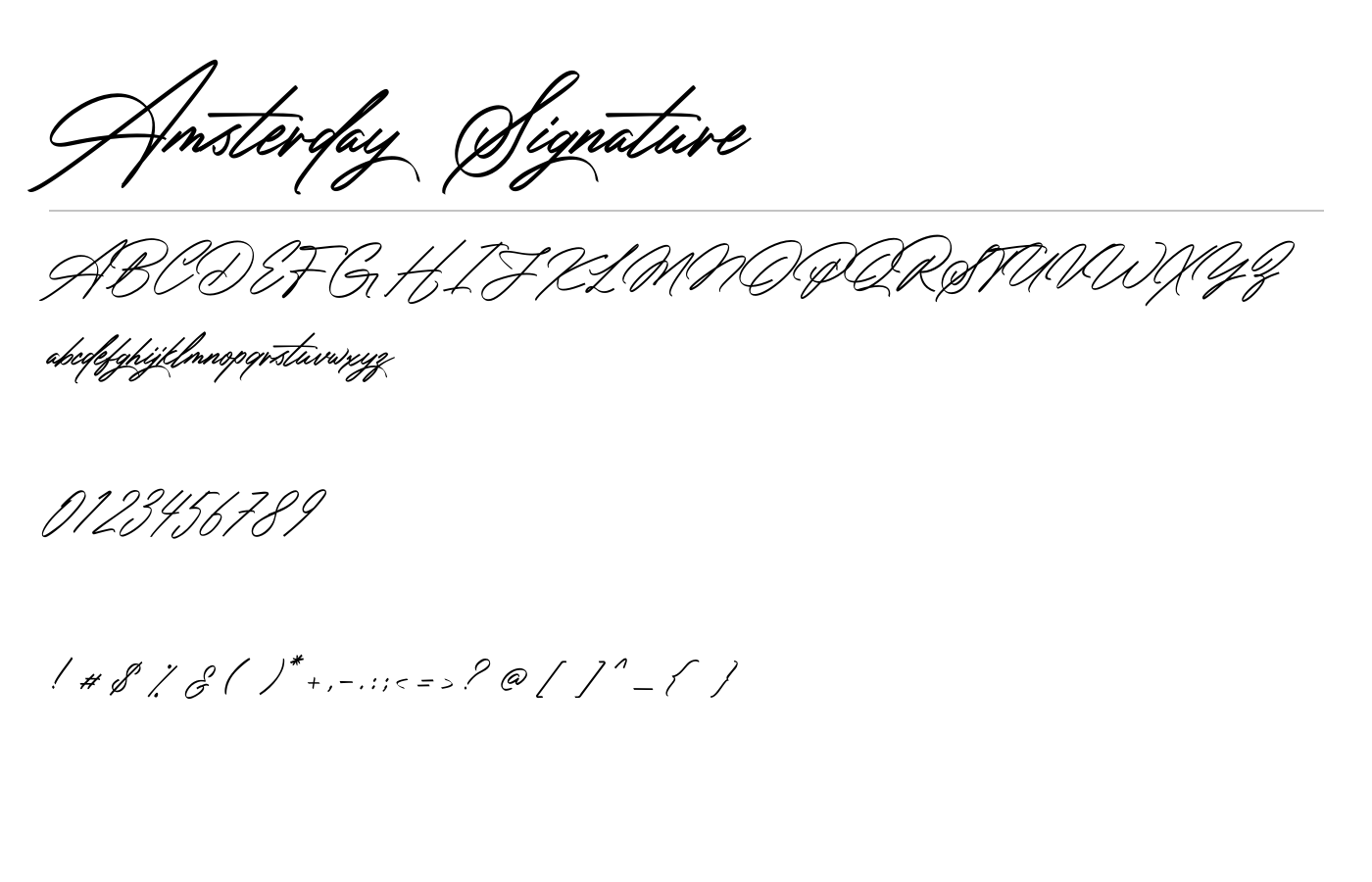
Amsterday Signature is an elegant, flowing script font that mimics natural handwriting with its delicate, connected strokes and refined curves. Its thin, graceful lines and cursive style lend a sophisticated and personal touch, making it ideal for luxury branding, invitations, and stylish logos where a sense of artistry and intimacy is desired. This font shines in contexts that call for a chic handwritten feel, adding warmth and refinement to any design.
Amsterday Signature Font
About Amsterday Signature Font